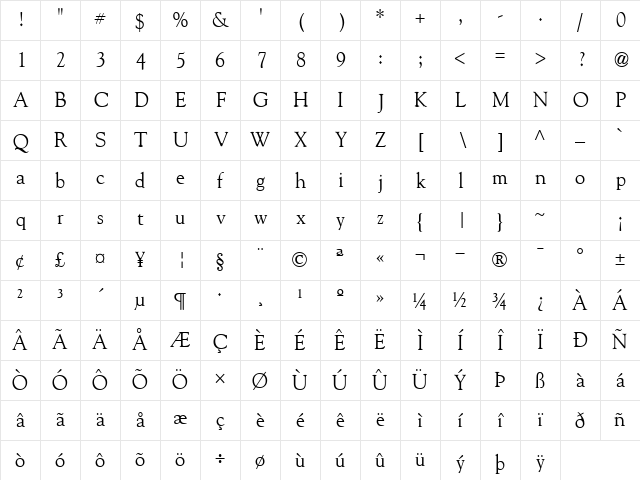
Return Regular
Return Family
Design Context for Return
Return is a composed and adaptable typeface that performs quietly and consistently across a wide range of design contexts.